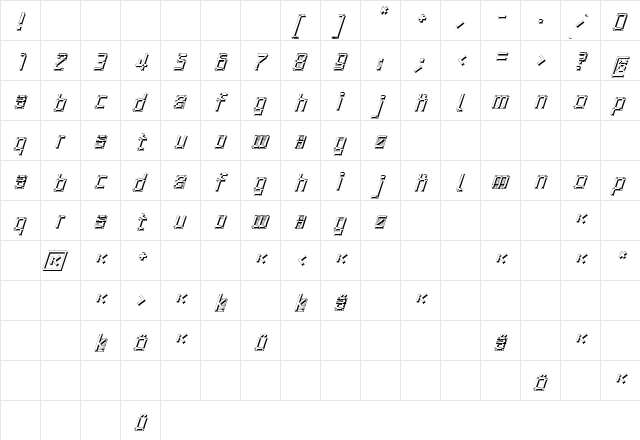
Architypo Oblique Font Preview
Architypo Oblique
Design Context for Architypo Typeface
Architypo is a composed and adaptable typeface that performs quietly and consistently across a wide range of design contexts. The dynamic lean of this cut emphasises speed and emphasis in any layout.